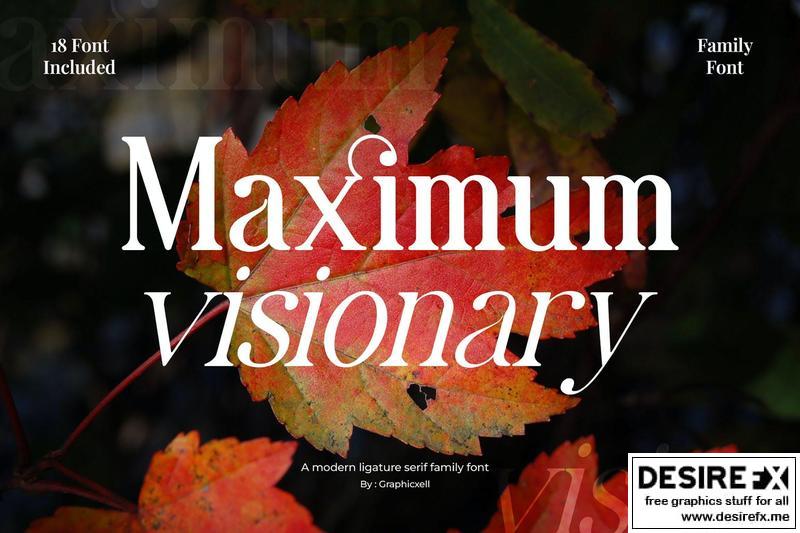
Maximum Visionary Family Elegant Serif Font EC64AU3
Maximum Visionary Family Elegant Serif Font inspired by the famous minimalist logo perfect for the purposes of designing templates, brochures, videos, advertising branding, logos, invitation, layout design, elegant crafting, beauty design and more.
- Ligatures